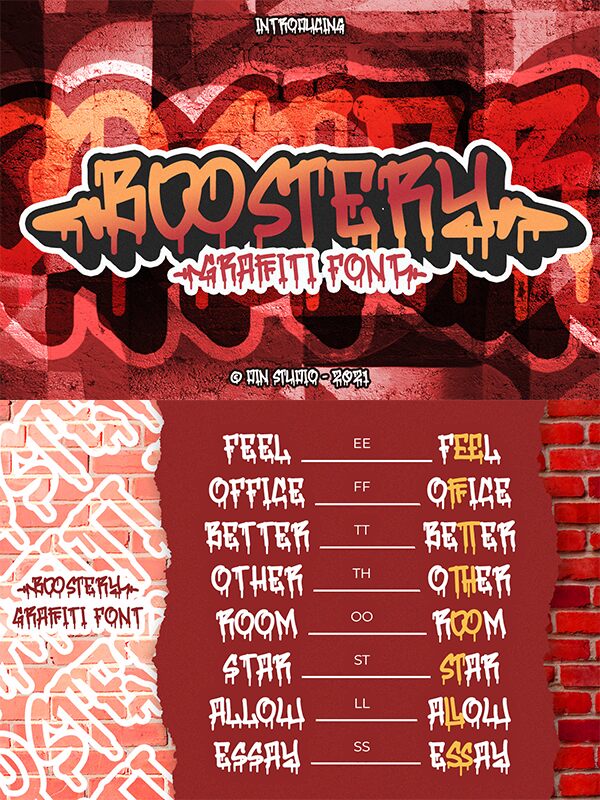
Boostery emerges from the vibrant streets to your screen, bringing the raw energy of urban art directly to your creative toolkit. Crafted by Din Studio, this semi-light graffiti font encapsulates the rebellious spirit and artistic flair of street murals and tags. With Boostery, you're not just choosing a typeface; you're infusing your project with an essence of authenticity that can only be emulated by true street art.
This font isn't just about the letters on the wall-it's a vehicle for bold statements and innovative designs. Whether it's electrifying a poster, adding character to a logo, or giving a book cover an edgy twist, Boostery is crafted for impact. Its wide array of stylistic alternatives ensures that every creation is as unique as graffiti itself. Ideal for branding, headings, printed products, merchandise, quotes, or social media campaigns-Boostery invites you to push boundaries and elevate your design narrative.
Discover Boostery's full potential by exploring its dynamic character set in our font preview-a glimpse into how this typeface can transform your work with its unmistakable style.